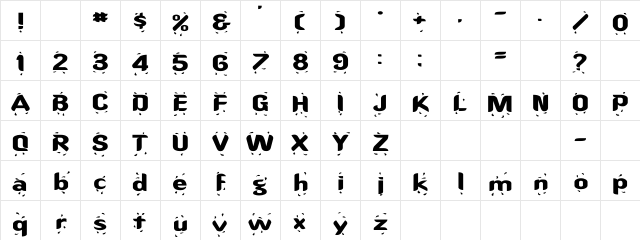
Design Context for Liquid Ex
Liquid Ex is a composed and adaptable typeface that performs quietly and consistently across a wide range of design contexts.
Pro Tip: Use Liquid Ex in both headline and body roles to test its range before committing to a single application.